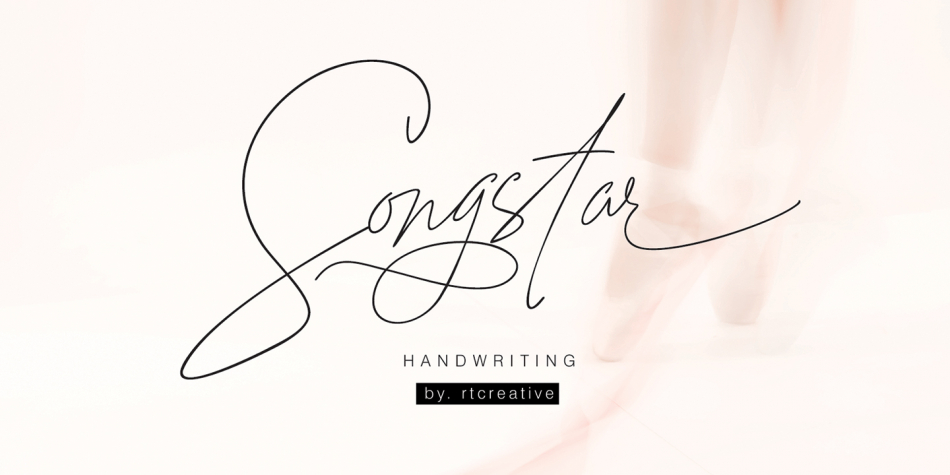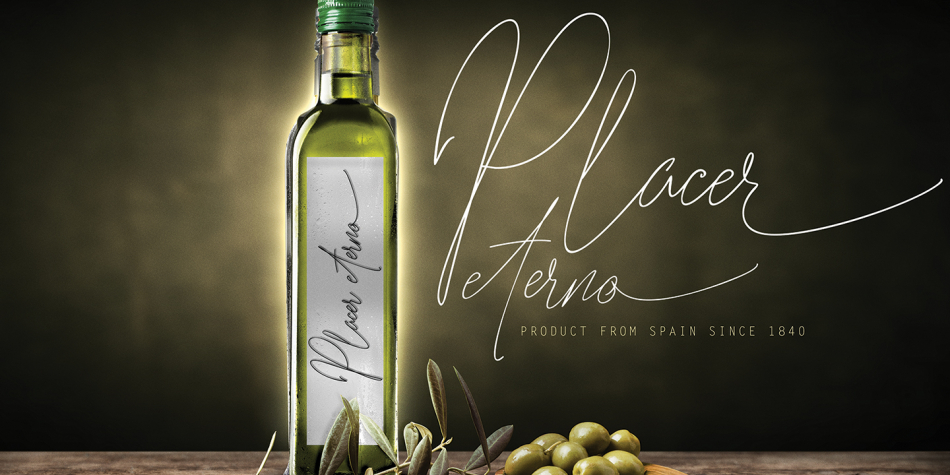
Designed by Rahmat Hidayat, Songstar is a hand drawn font published by RtCreative.
Songstar is a purely handwritten font duo. It has natural characteristics and would be perfect for invitations, signatures, blogs, social media, business cards, product brands.
These fonts are elegant and have two sets of letters: Stylistic Standard and Stylistic Alternate.
The fonts include uppercase and lowercase letters, numbers and punctuation and are equipped with ligatures.